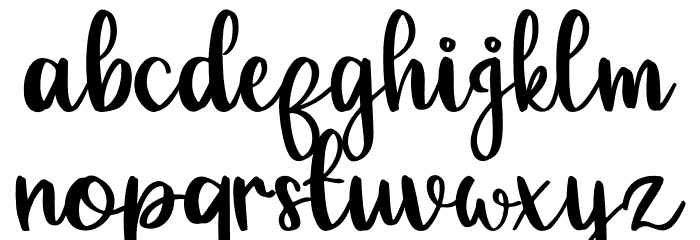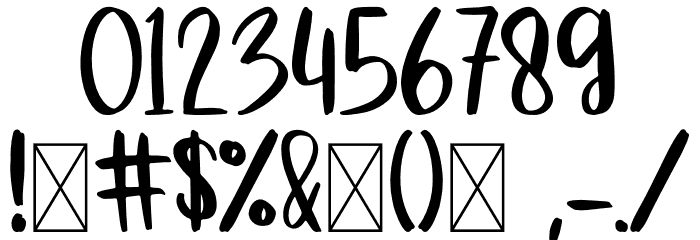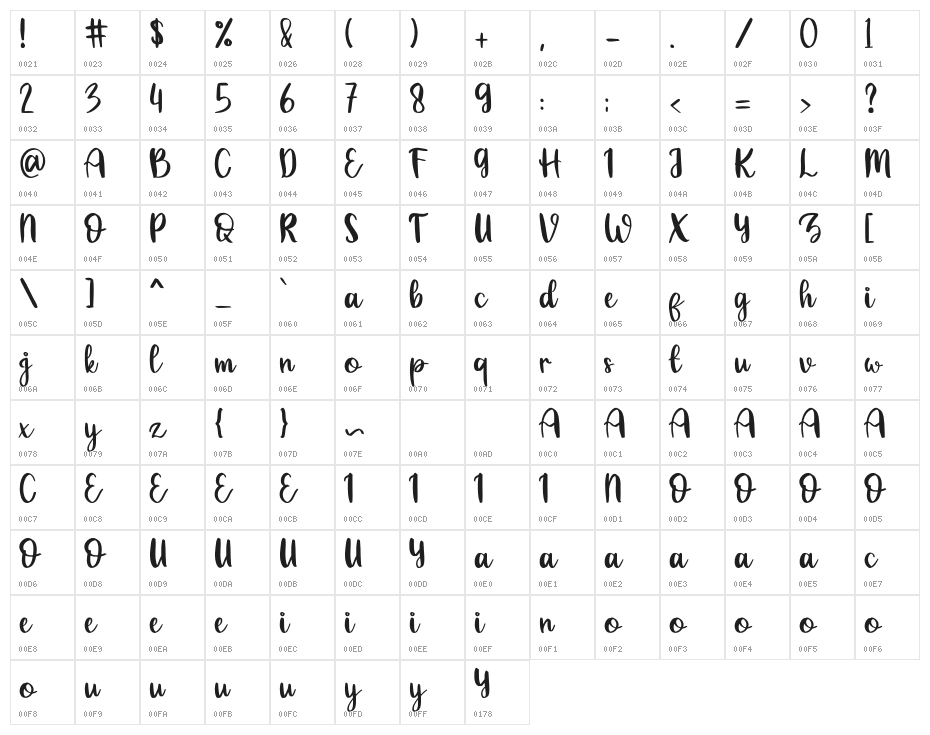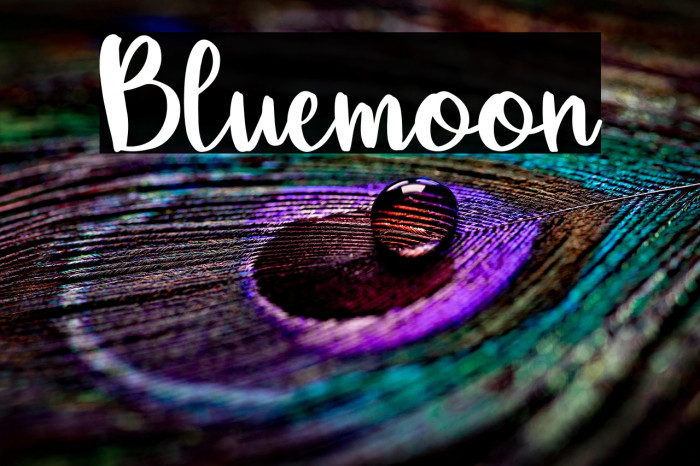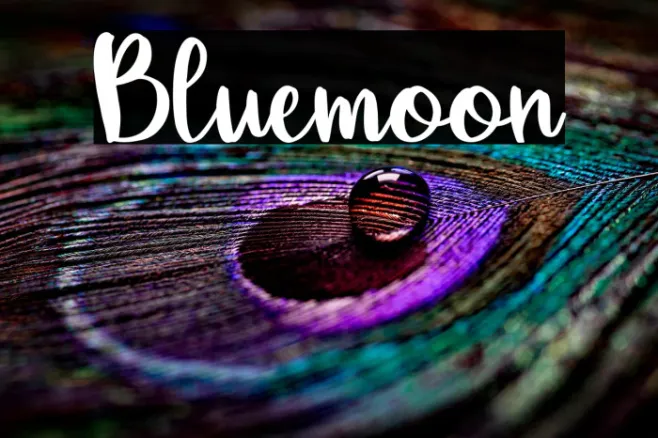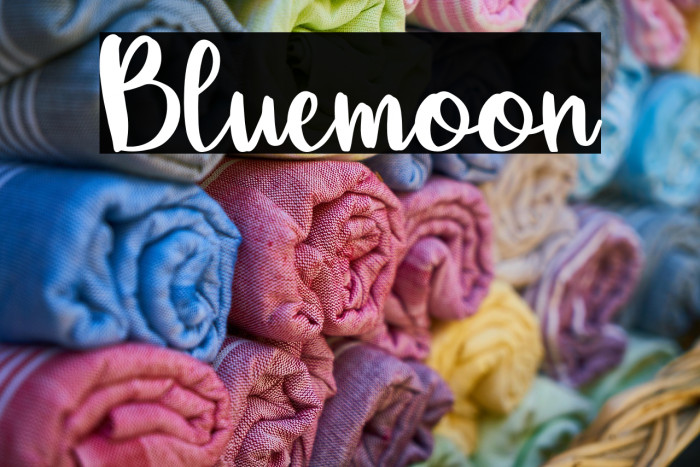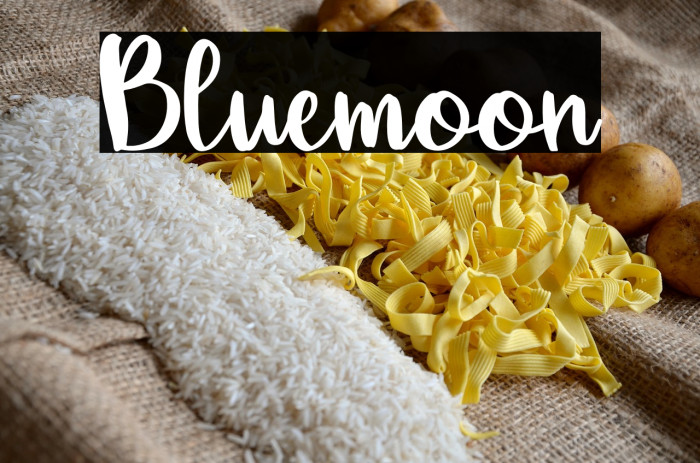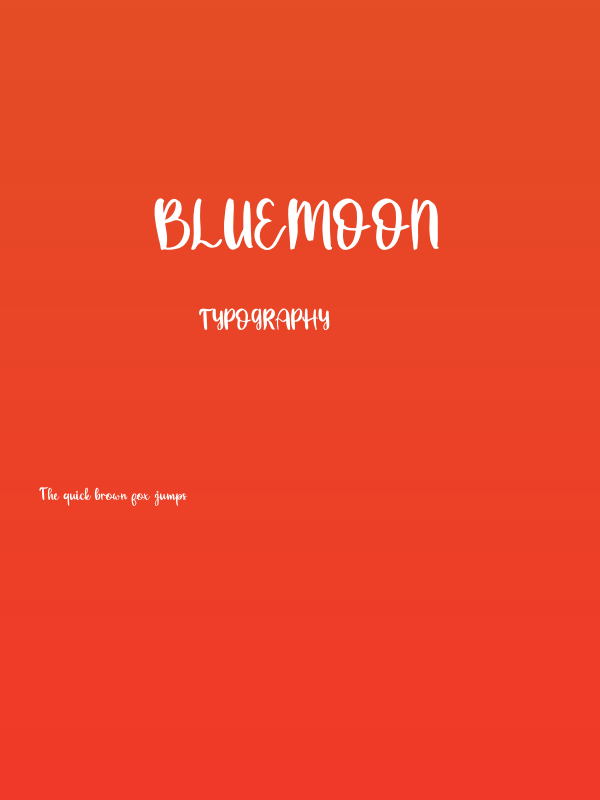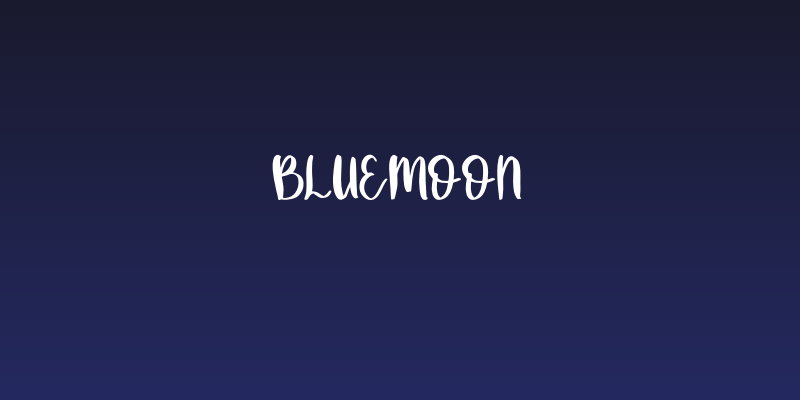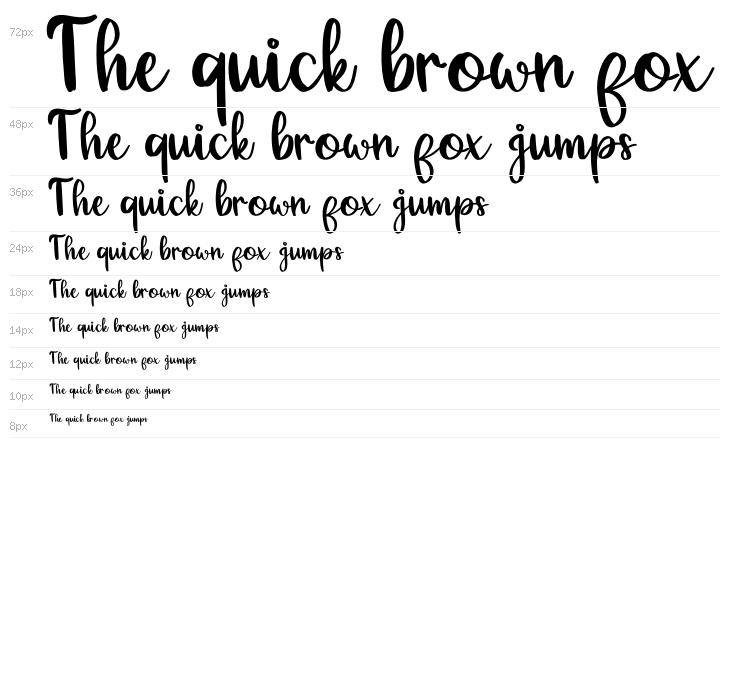
Bluemoon Font
This font features a playful and energetic script style with a handwritten appearance. The letters are bold and fluid, with a consistent stroke width that gives it a cohesive look. The uppercase letters are tall and slightly narrow, while the lowercase letters have a more rounded and flowing form. The numbers are clear and easy to read, maintaining the same lively style. Special characters are creatively integrated, adding to the font's charm. This font exudes a sense of fun and creativity, making it ideal for projects that require a personal touch.
A playful and bold handwritten script font with fluid strokes.
- Proposed Projects: Greeting cards, invitations, branding, social media graphics, and posters.
- Category: Script
- Use Case: Logos, Headlines, Invitations